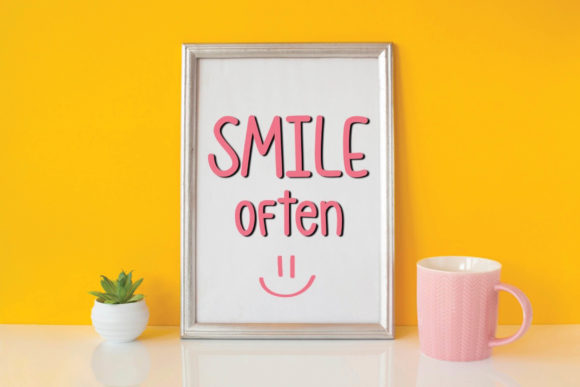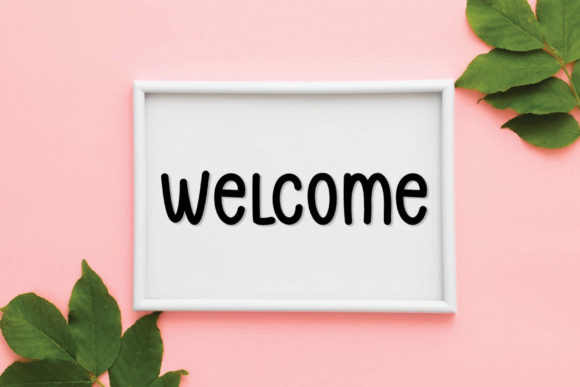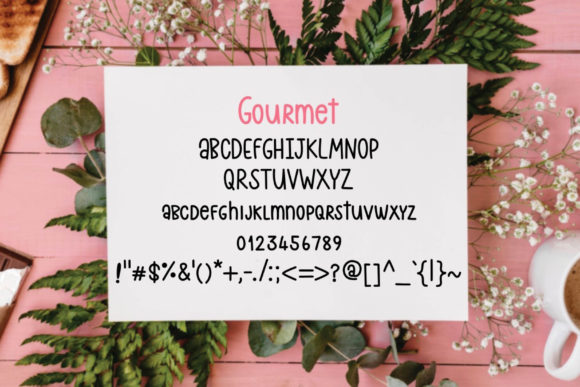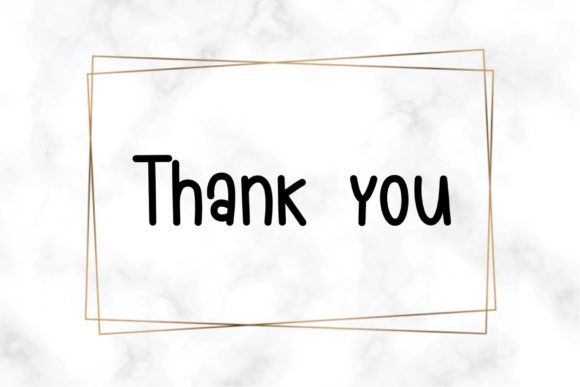
Introduction to Gourmet Font
Gourmet is a casual and fun display font.
Clean and a little bit quirky, this font is the perfect fit for all of your logos, branding, social media, and crafty DIY projects .